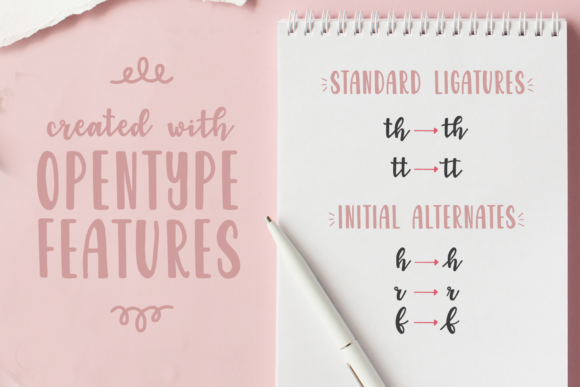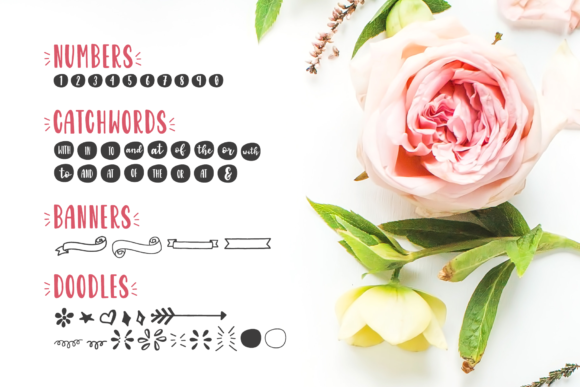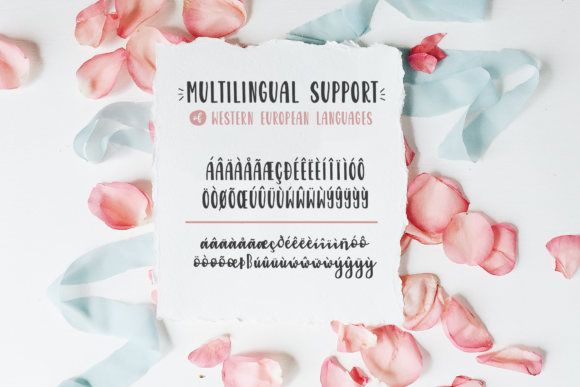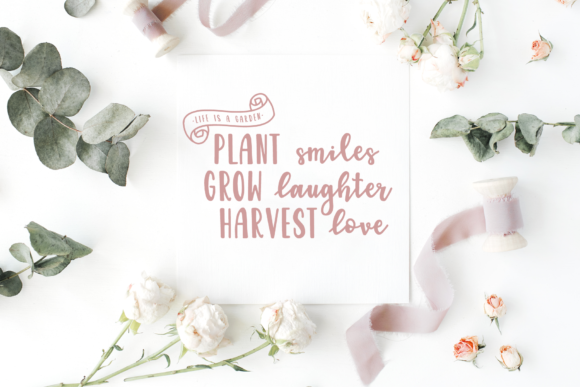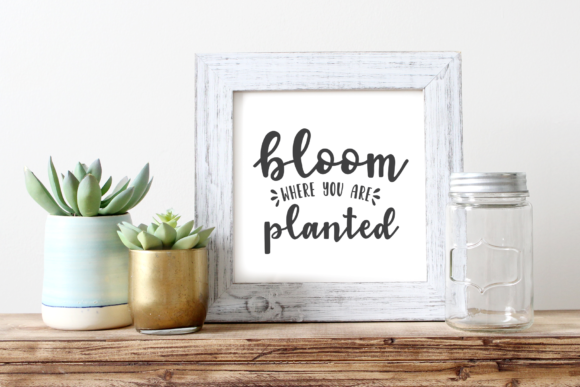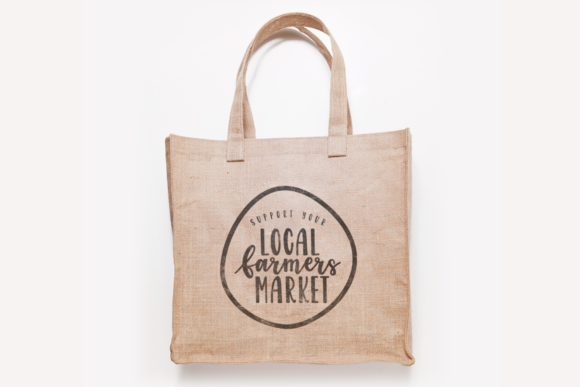
Introduction to Garden Fancy Duo Font Font
Fonts play a crucial role in design, and the Garden Fancy Duo Font font is a typeface that brings both character and versatility to any project. Whether you’re working on a branding project, a website, or a print design, the Garden Fancy Duo Font font offers a unique style that can elevate your work.
| π Font Name | Garden Fancy Duo Font |
| π€ Author | The Pretty Letters |
Garden Fancy duo is a match made in heaven, the ligatures of the script perfectly complements the dingbatβs style.
Combining these two fonts on your next design will give your next design a modern and cute feel .
Key Features of Garden Fancy Duo Font Font
Why Choose Garden Fancy Duo Font Font?
The Garden Fancy Duo Font font is more than just a typeface β it’s a design tool that helps you communicate your message with style and clarity. Its unique character set and versatile design make it suitable for a wide range of applications, from elegant invitations to bold headlines.
With its carefully crafted letterforms and balanced proportions, the Garden Fancy Duo Font font ensures readability and visual appeal across all mediums.
What makes Garden Fancy Duo Font font special?
The Garden Fancy Duo Font font stands out with its unique design, exceptional readability, and versatility across various design applications.